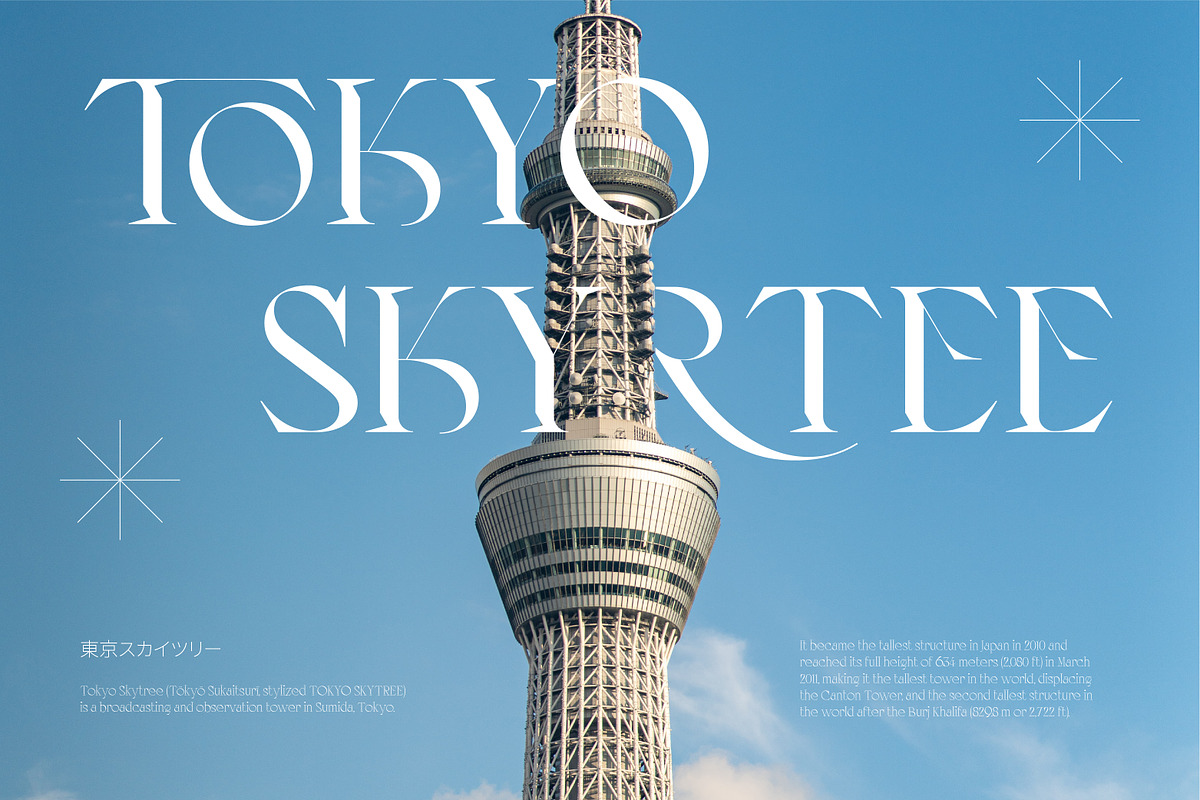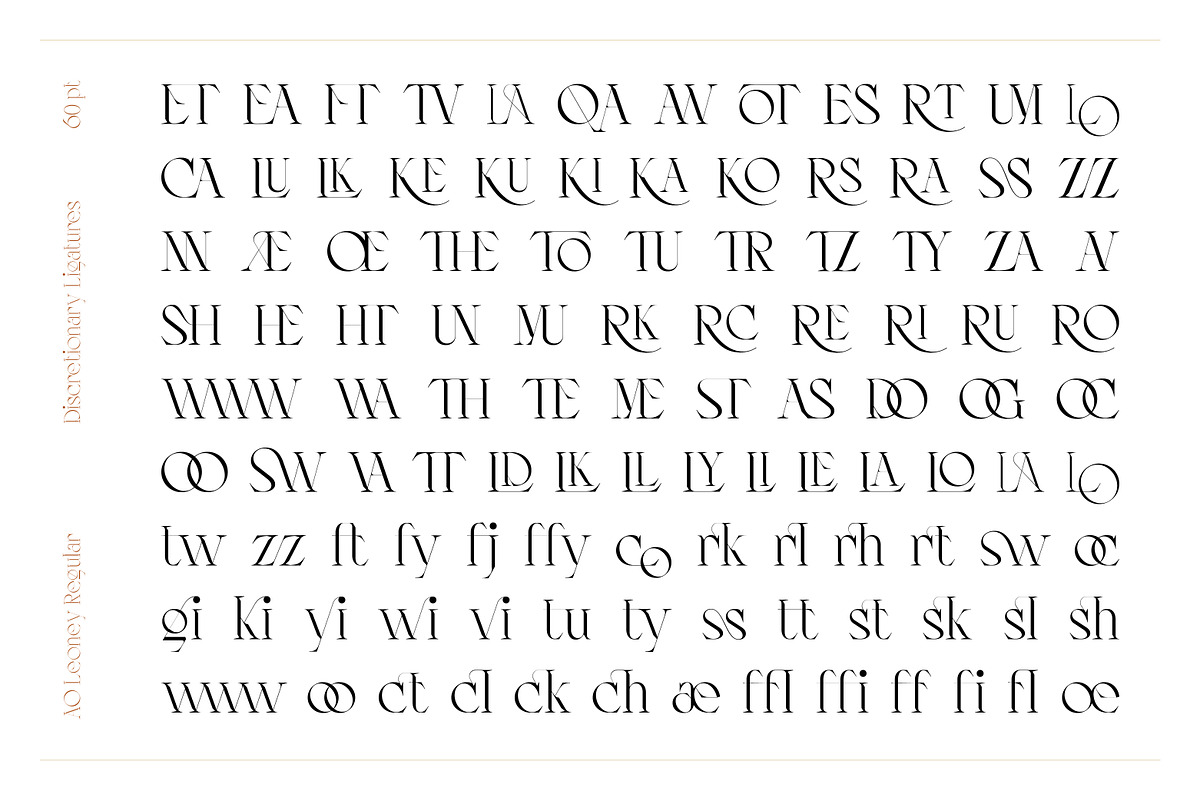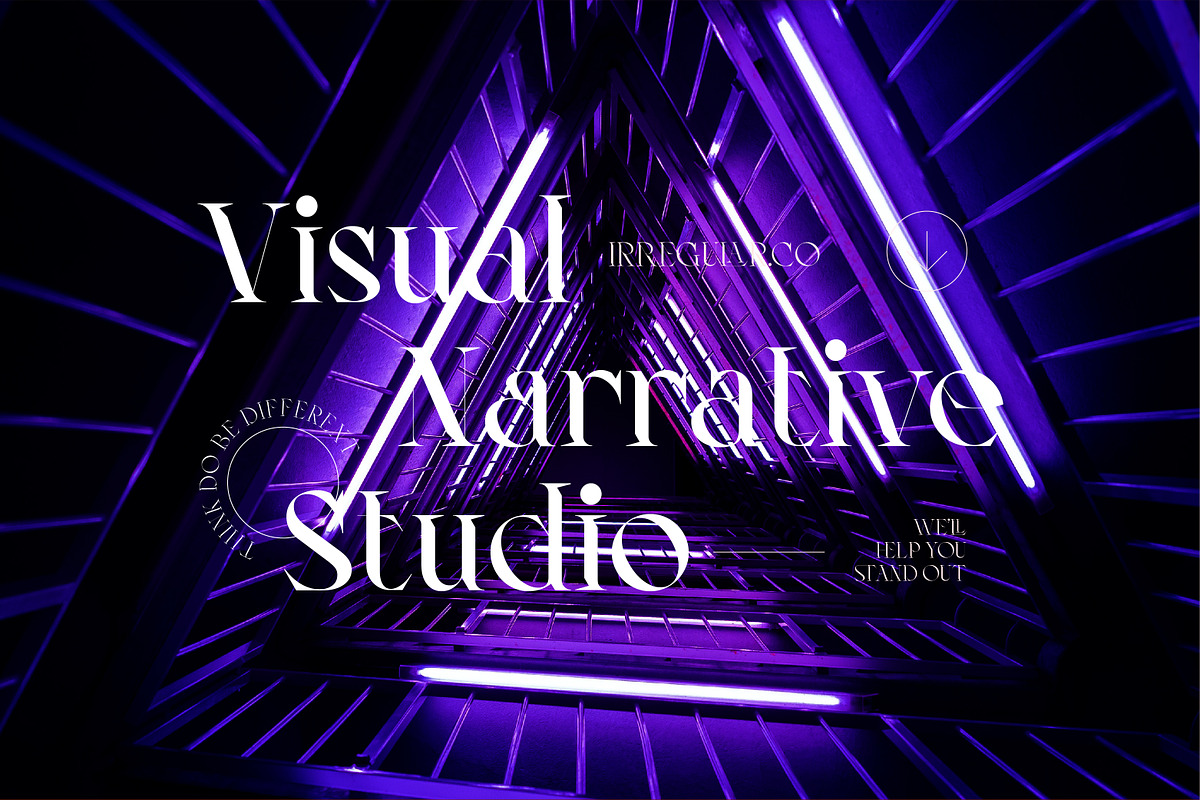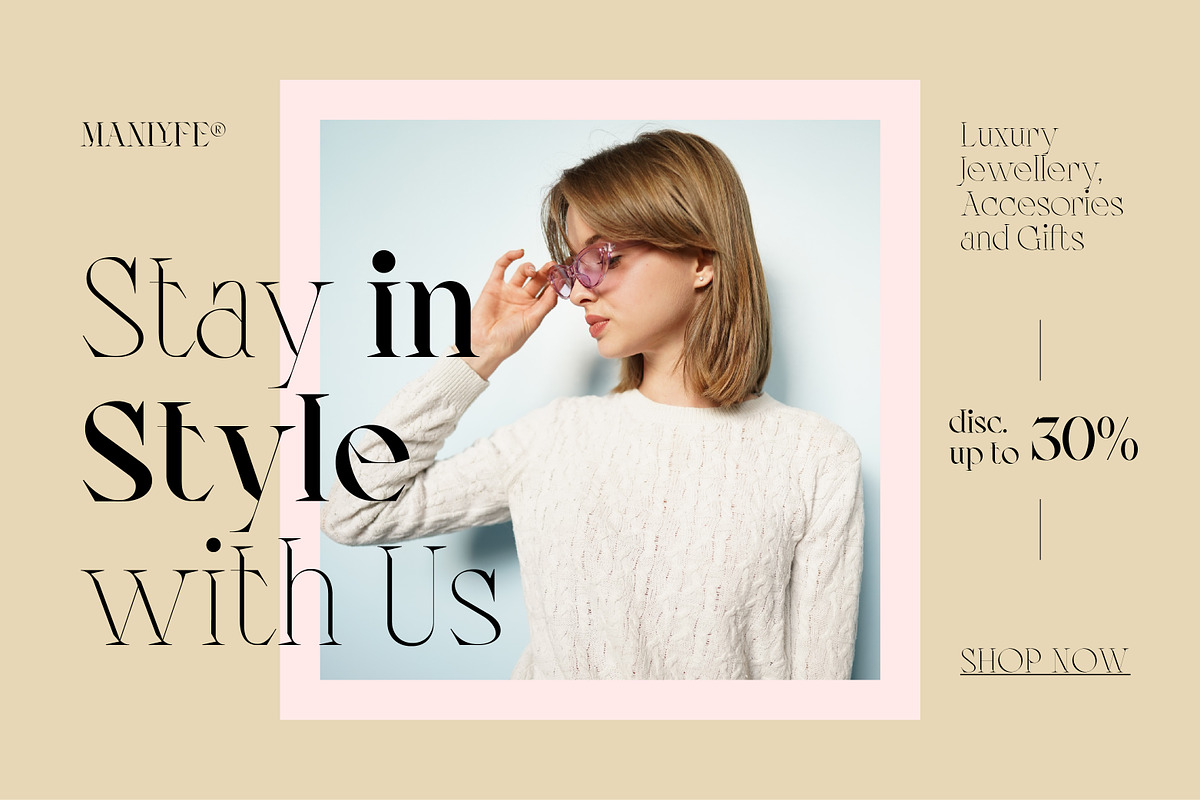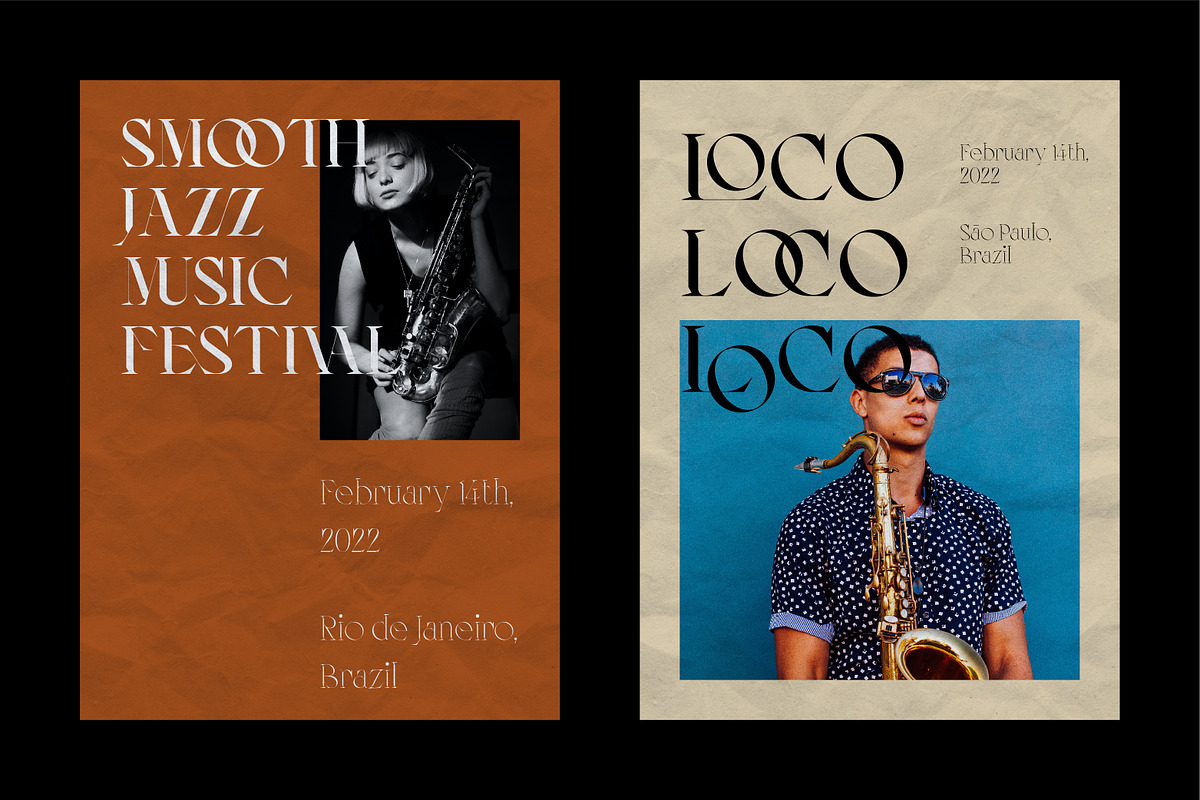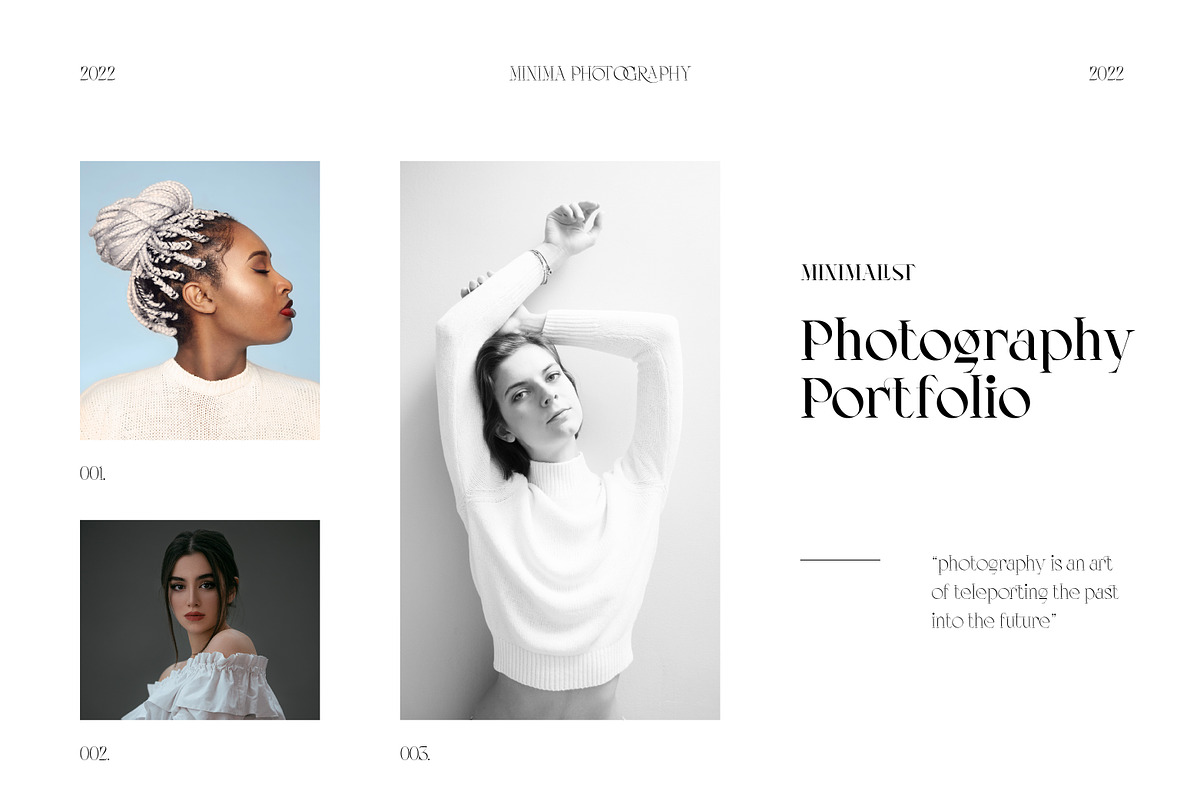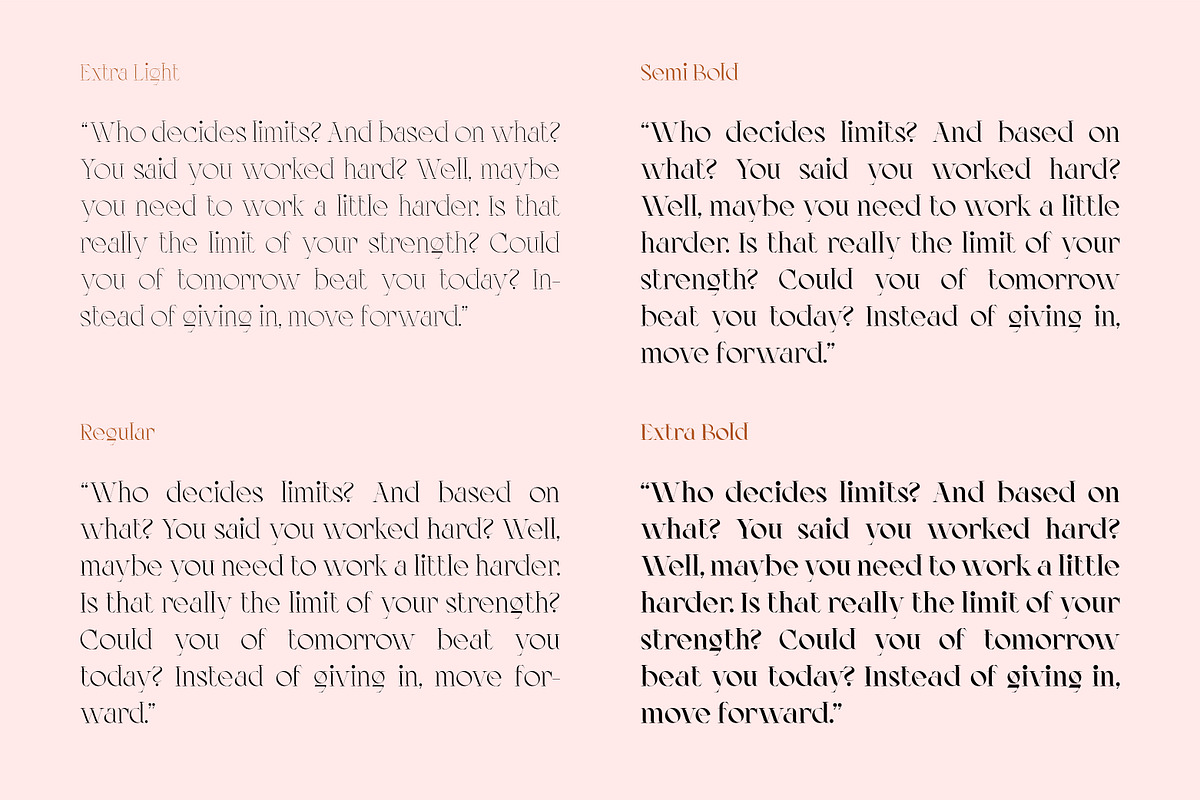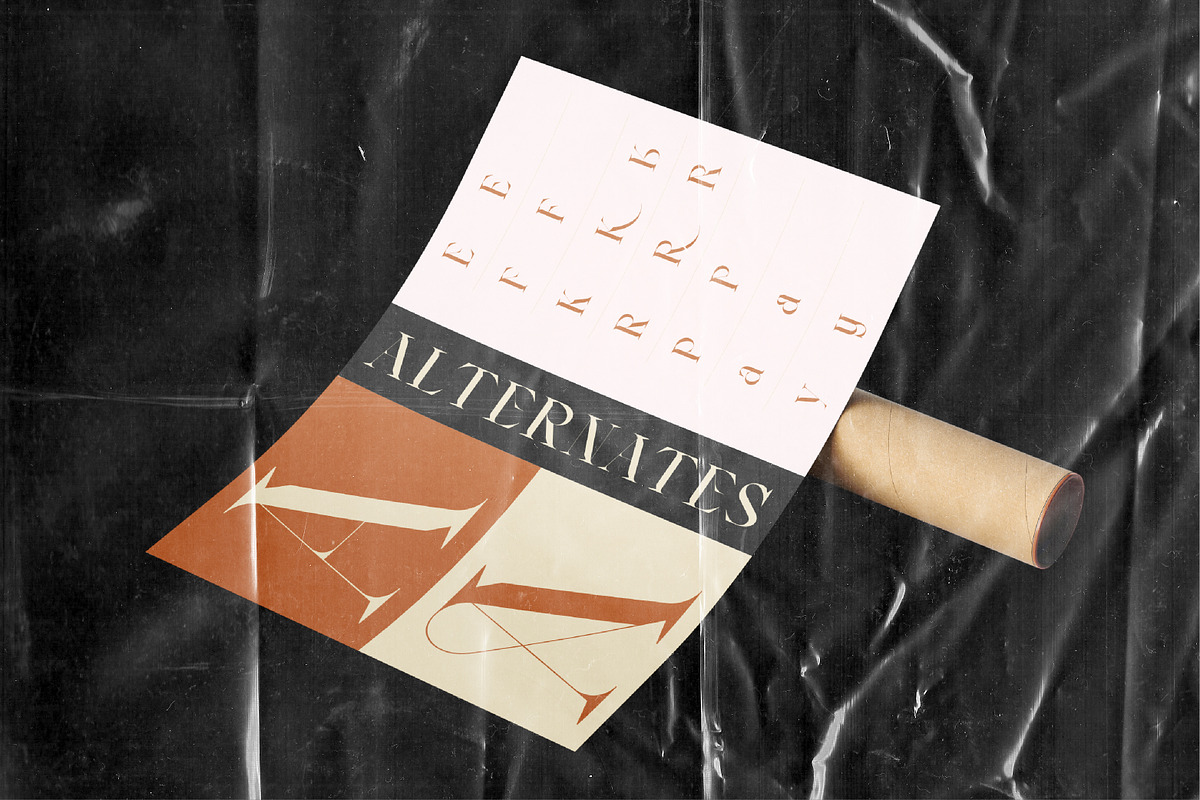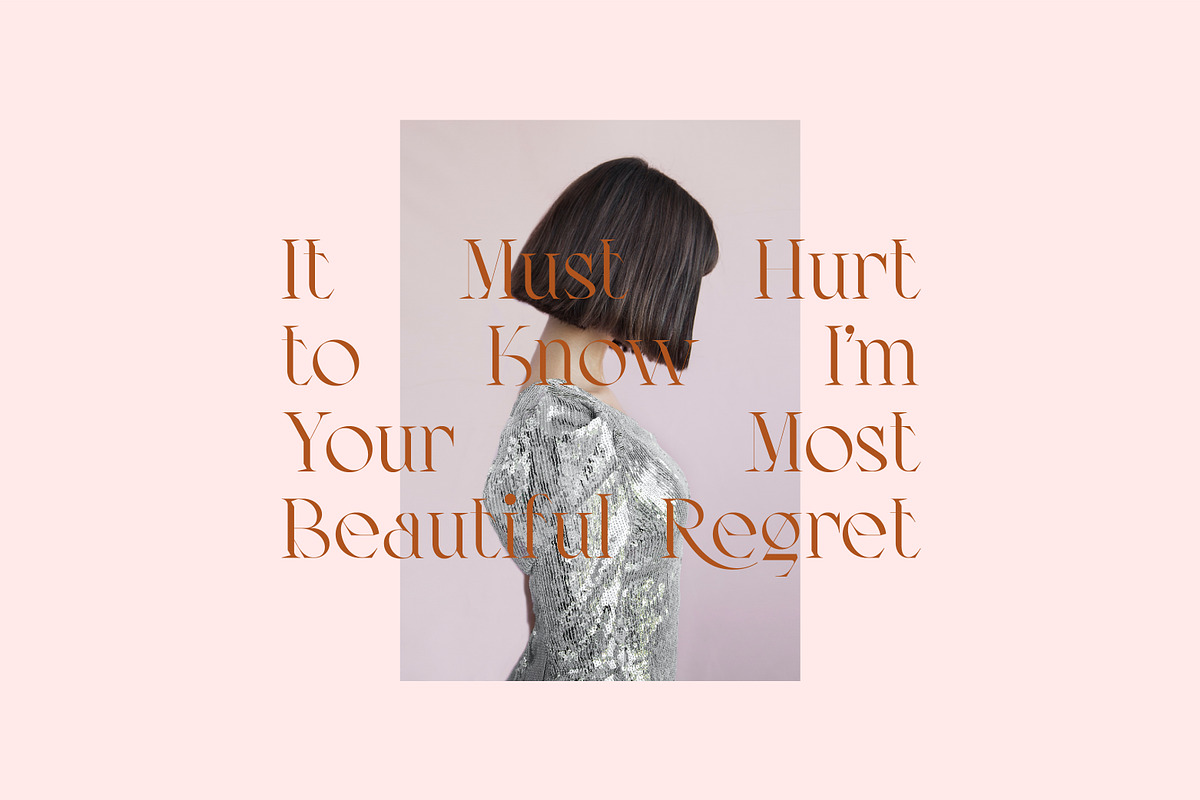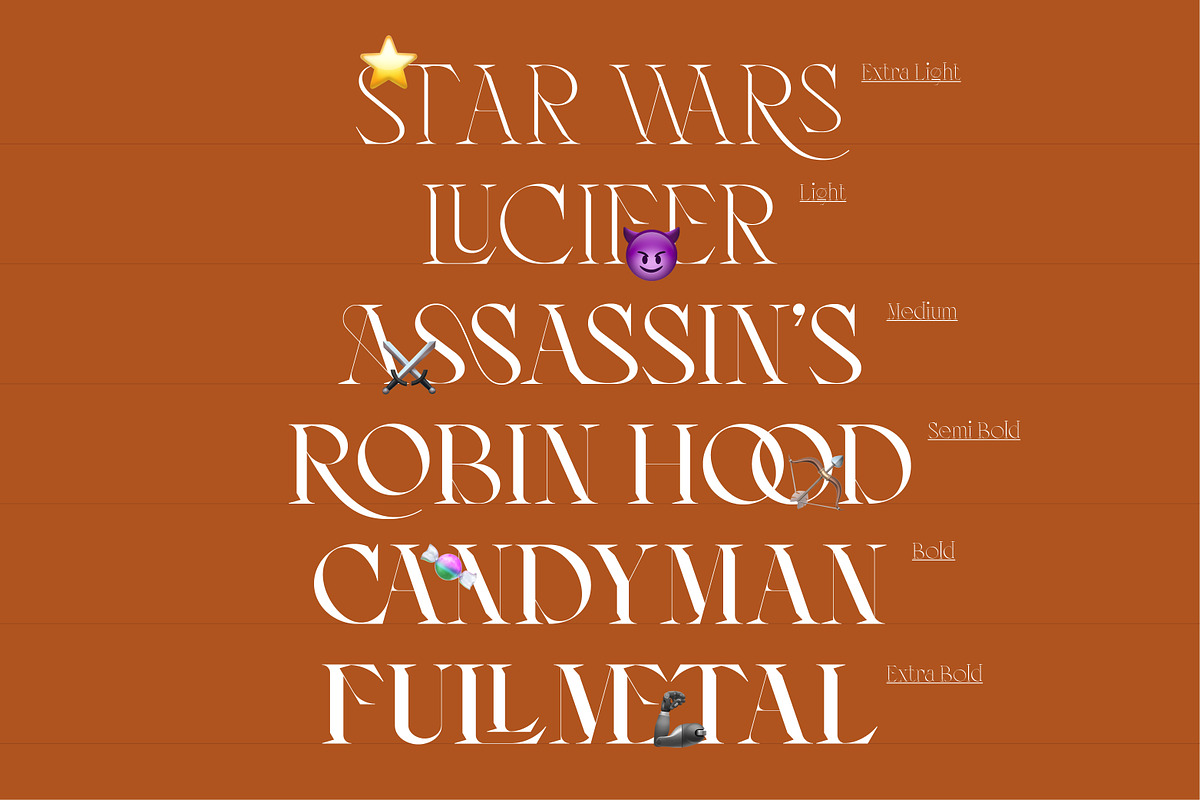
AO Leoney - Display Font Family
AO Leoney is a seven-weight typeface that whose conception is highly drawn to the idea of experimental and modrenity. the high lines contrast of AO Leoney transmit a wide sense of fancy and edgy.
All seven weights (Extralight, Light, Regular, Medium, Semibold, Bold, Extra Bold) contain character sets that include uppercase, lowercase, numerals, punctuation, ligatures, and alternates. Furthermore, this Dispaly Typeface making it a perfect fit to be used either in titles or other typographic compositions.